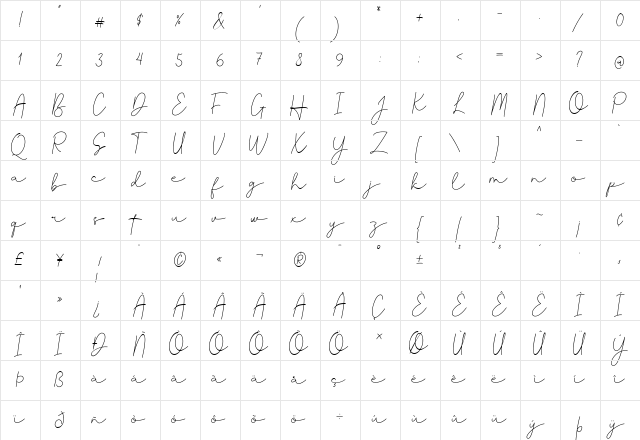
Beskill Regular
Design Context for Beskill Typeface
Beskill is a composed and adaptable typeface that performs quietly and consistently across a wide range of design contexts.